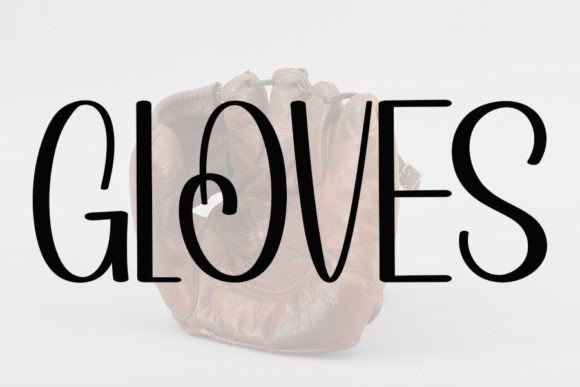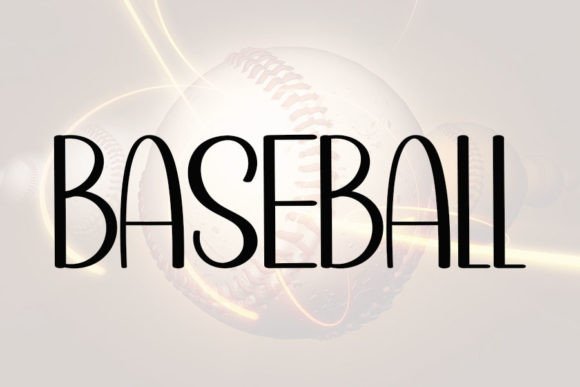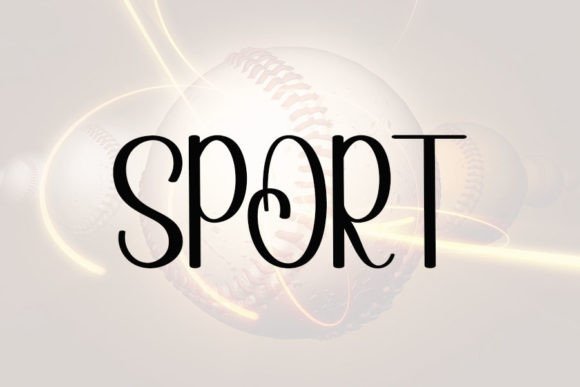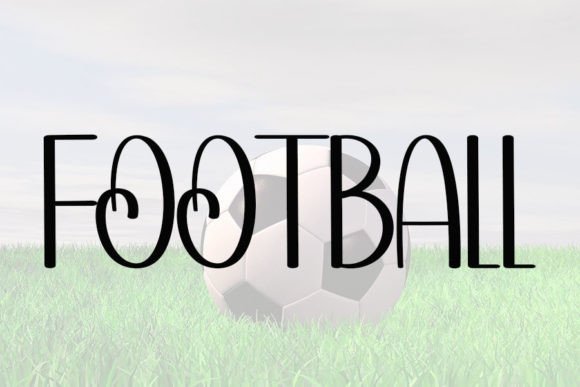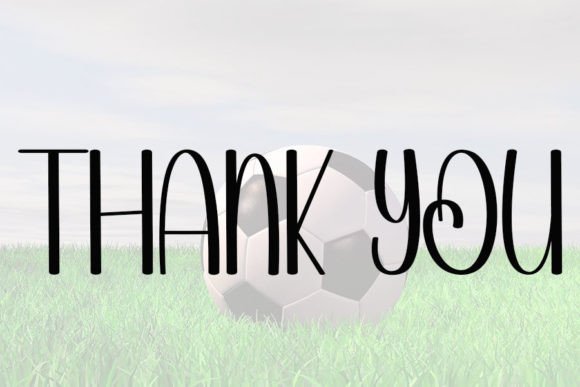
Dribble Font: Elevate Your Designs with Elegance and Timeless Style
Are you on the hunt for a font that exudes elegance, sophistication, and a touch of handmade charm? Look no further than the Dribble Font. This stunning handwritten font is designed to add a dash of personality to your projects, making them stand out with its unique and timeless style. In this article, we’ll dive into the world of Dribble Font, exploring its features, benefits, and uses, as well as provide tips on how to make the most of this beautiful typeface.
What is Dribble Font?
Dribble Font is a meticulously crafted handwritten font that boasts an elegant touch, perfect for designers, crafters, and anyone looking to add a personal touch to their work. Its distinct style is characterized by flowing lines, subtle imperfections, and a sense of warmth, making it an excellent choice for a wide range of projects, from branding and packaging to invitations and digital media.
Key Features of Dribble Font
- Elegant and Refined: Dribble Font features a sophisticated and elegant design, perfect for projects that require a touch of luxury and refinement.
- Handwritten Charm: With its handwritten origins, Dribble Font brings a sense of personality and warmth to your designs, making them more relatable and engaging.
- Timeless Style: The font’s classic design ensures that it will remain relevant for years to come, making it an excellent investment for designers and crafters.
- Versatile: Dribble Font is suitable for a wide range of projects, including branding, packaging, invitations, digital media, and more.
Benefits of Using Dribble Font
So, why choose Dribble Font for your next project? Here are just a few benefits of using this beautiful typeface:
- Adds Personality: Dribble Font helps you add a personal touch to your designs, setting them apart from the crowd.
- Enhances Readability: The font’s clear and elegant design ensures that your text is easy to read, making it perfect for body text and headings.
- Boosts Creativity: With Dribble Font, you can experiment with different design styles, from minimalist to elaborate, to create truly unique and eye-catching designs.
- Saves Time: The font’s versatility and ease of use save you time and effort, allowing you to focus on other aspects of your project.
Tips for Using Dribble Font
To get the most out of Dribble Font, here are some expert tips to keep in mind:
- Experiment with Colors: Dribble Font looks stunning in a range of colors, from bold and bright to soft and pastel. Experiment with different hues to find the perfect match for your project.
- Play with Pairings: Combine Dribble Font with other fonts to create interesting and dynamic typography. Try pairing it with a clean sans-serif font for a striking contrast.
- Pay Attention to Spacing: Make sure to adjust the spacing and kerning to ensure that your text is easy to read and visually appealing.
- Use it for Headings and Body Text: Dribble Font is suitable for both headings and body text, making it an excellent choice for long-form content and short-form text.